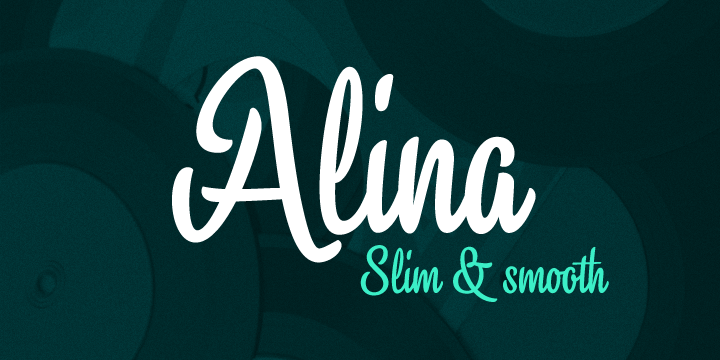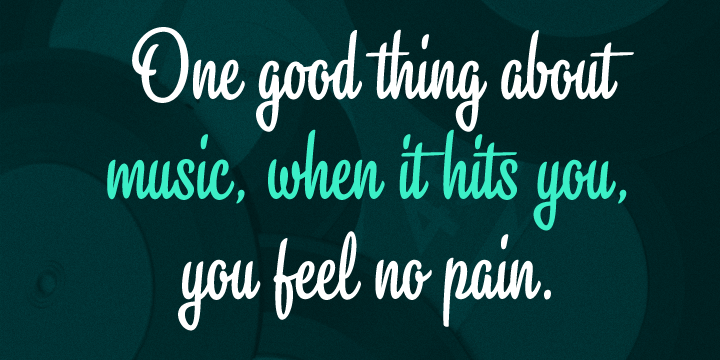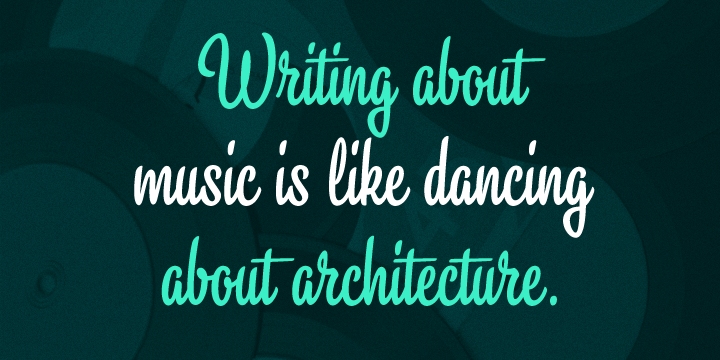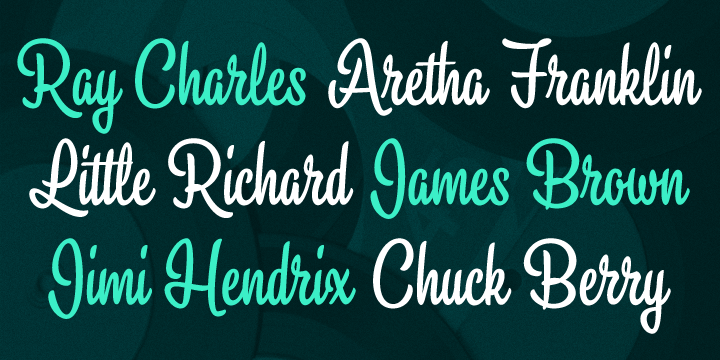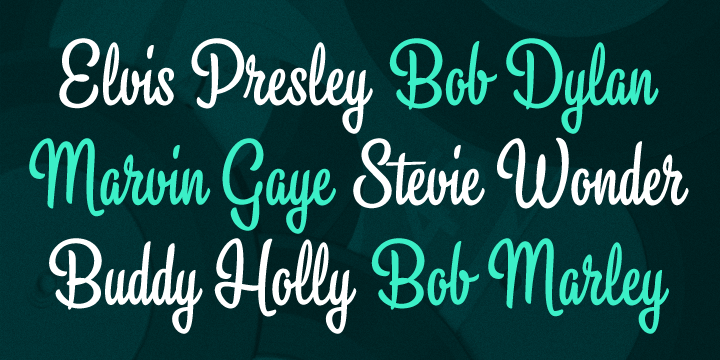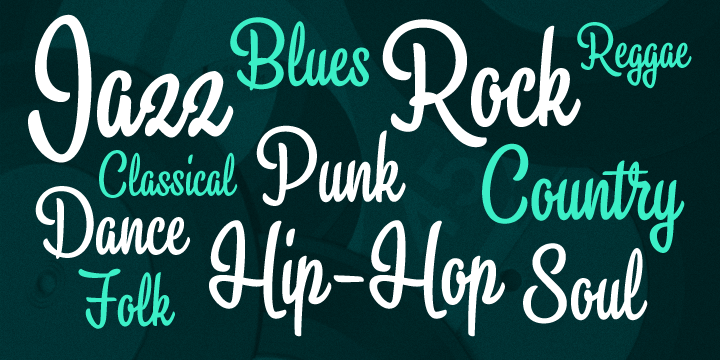
Alina
Font Family by Mika Melvas
Alina is a laid-back condensed script font. Alina includes OpenType ligatures to all lowercase double letters to make them subtle differ from each other. So Alina feels a little bit more hand lettered and lively.